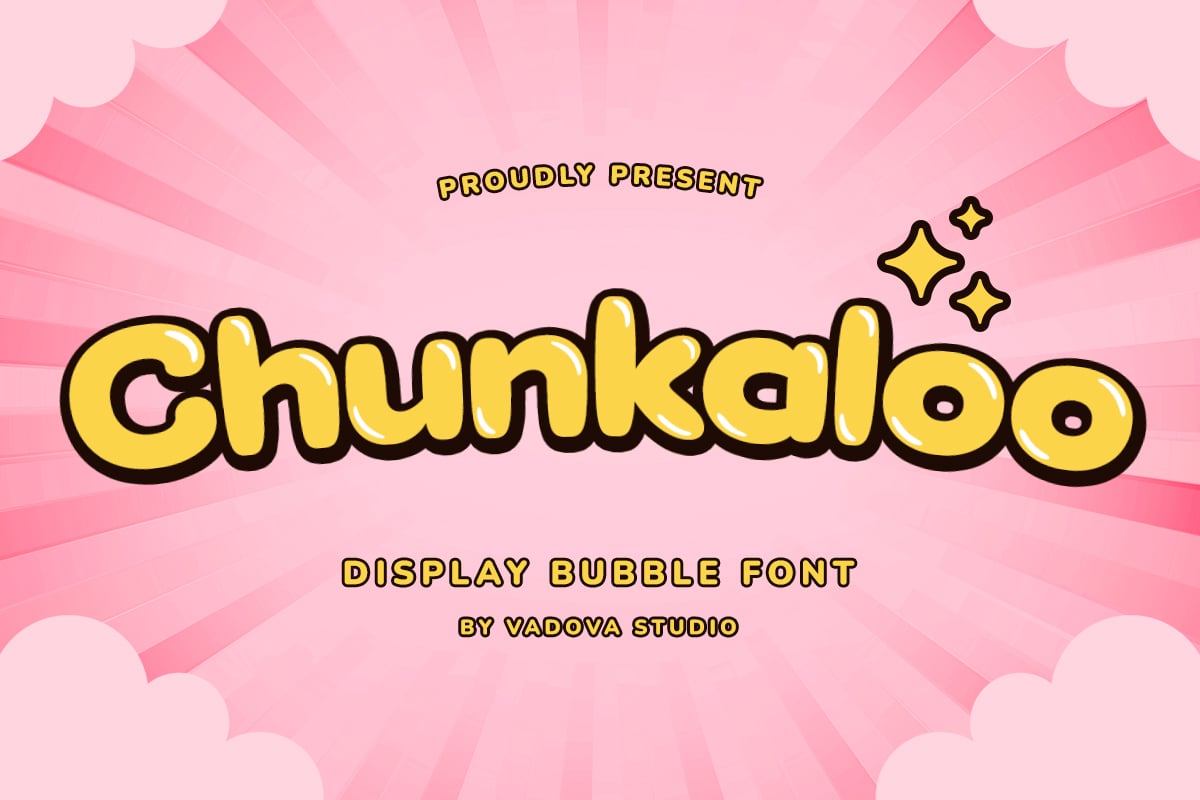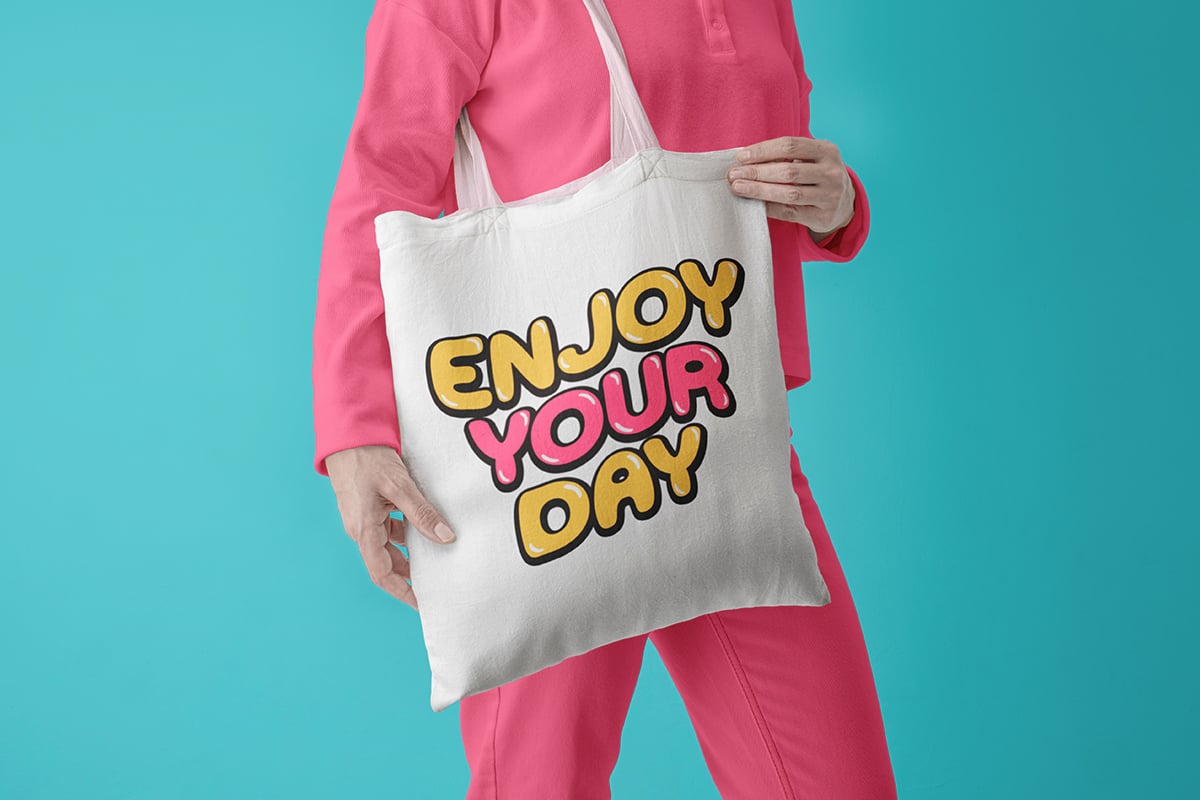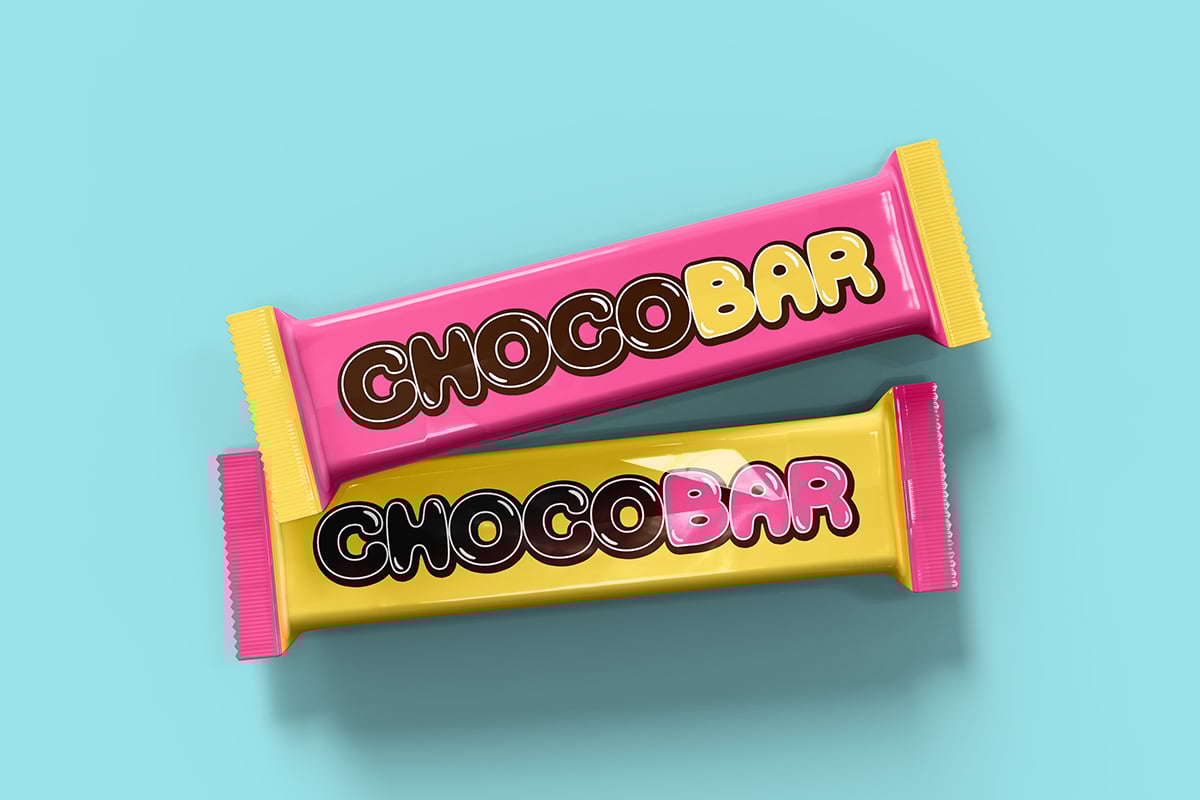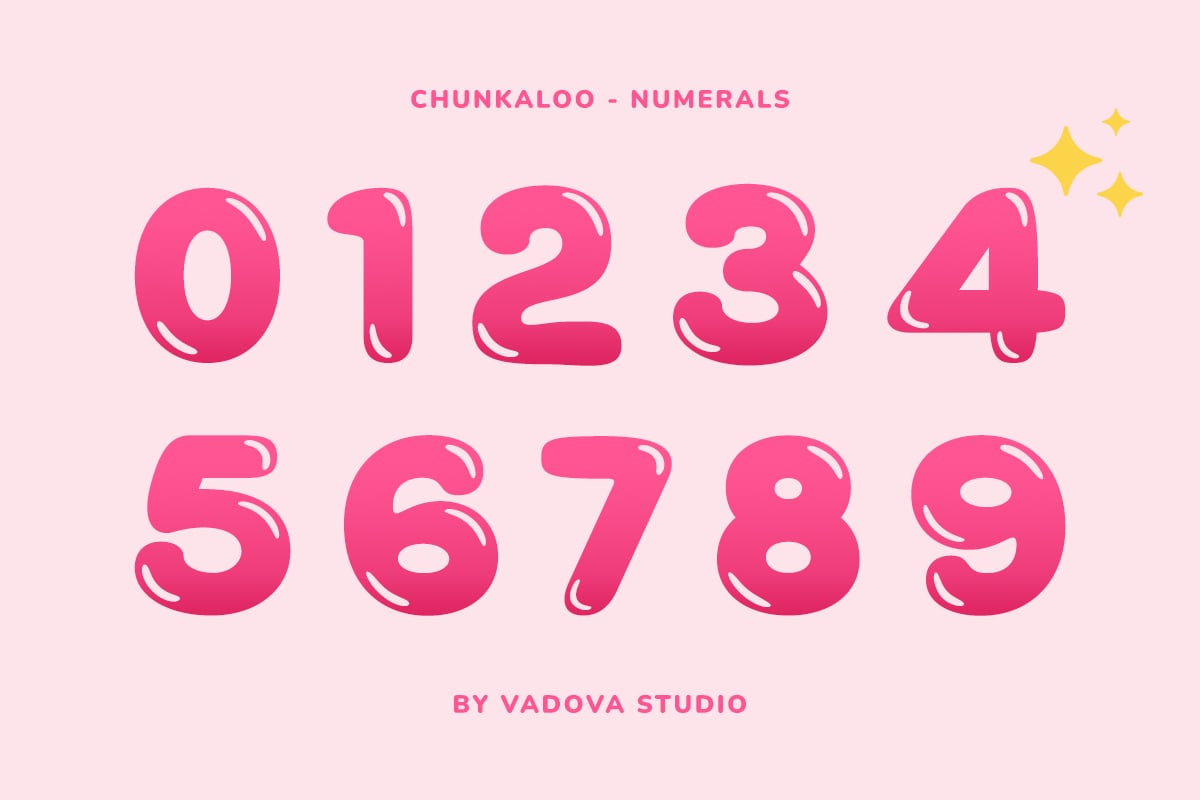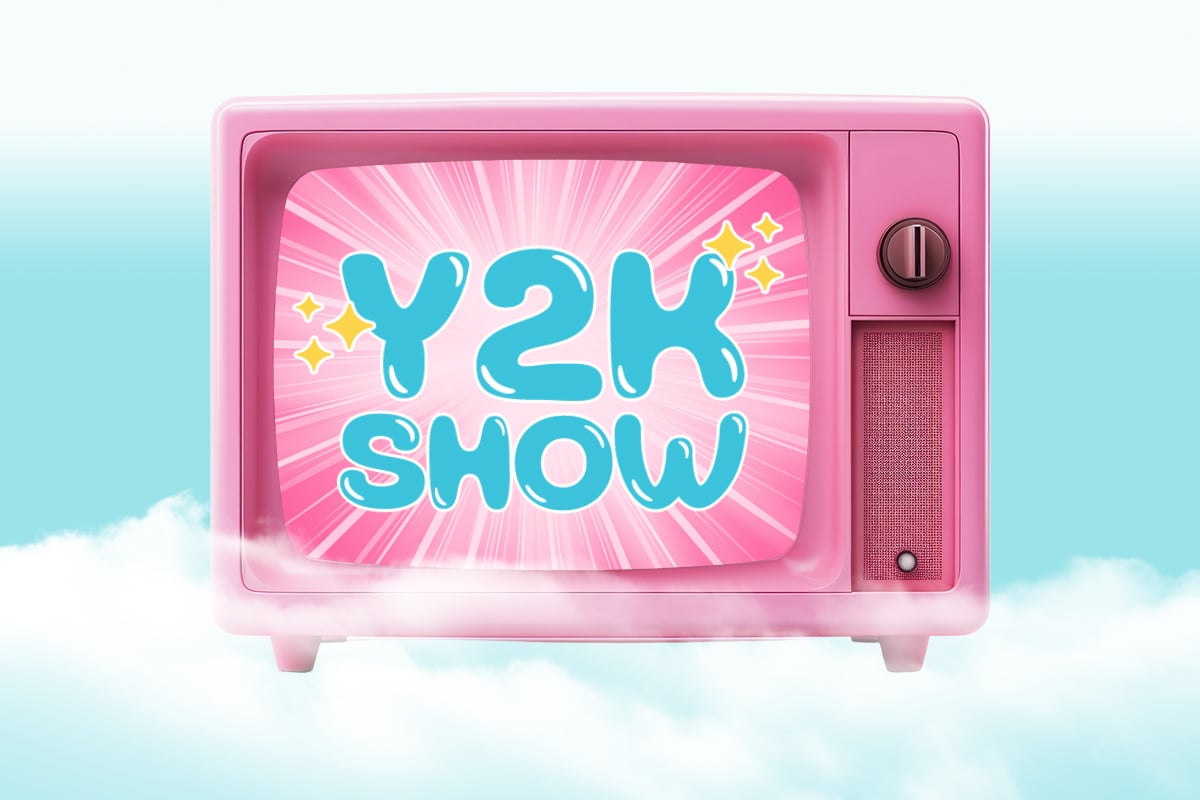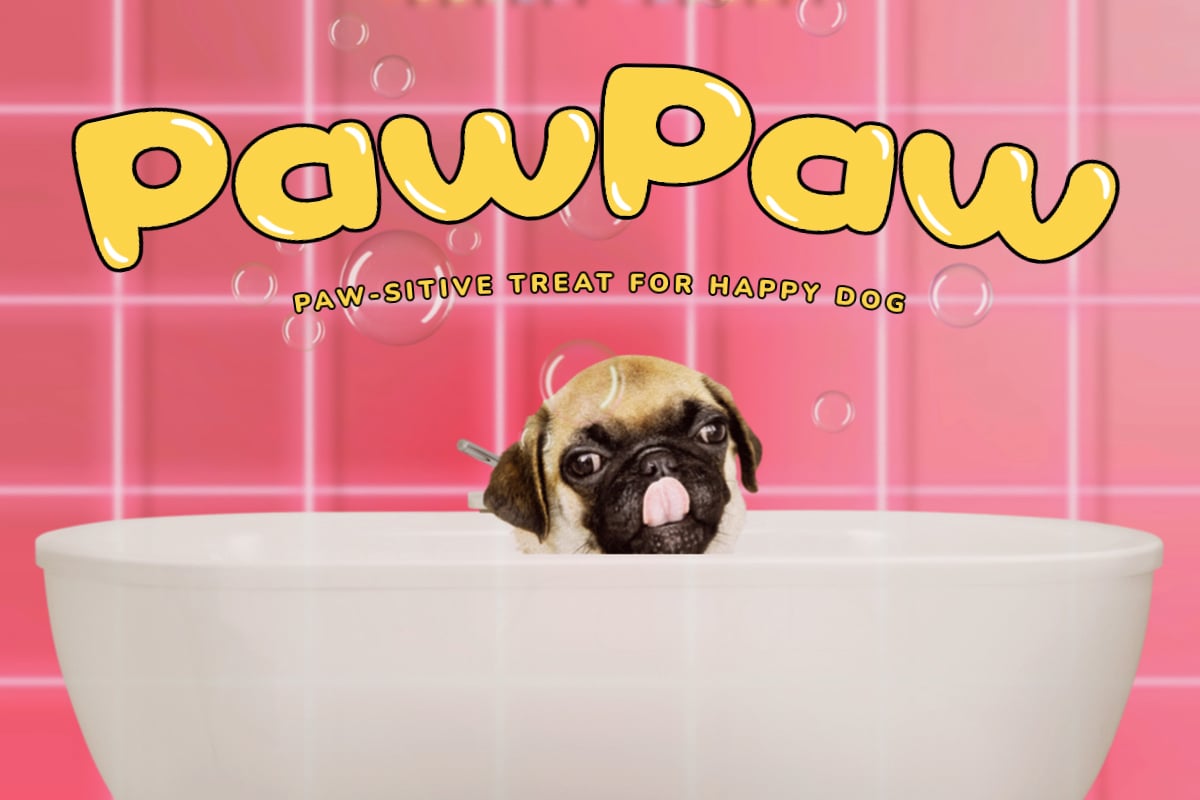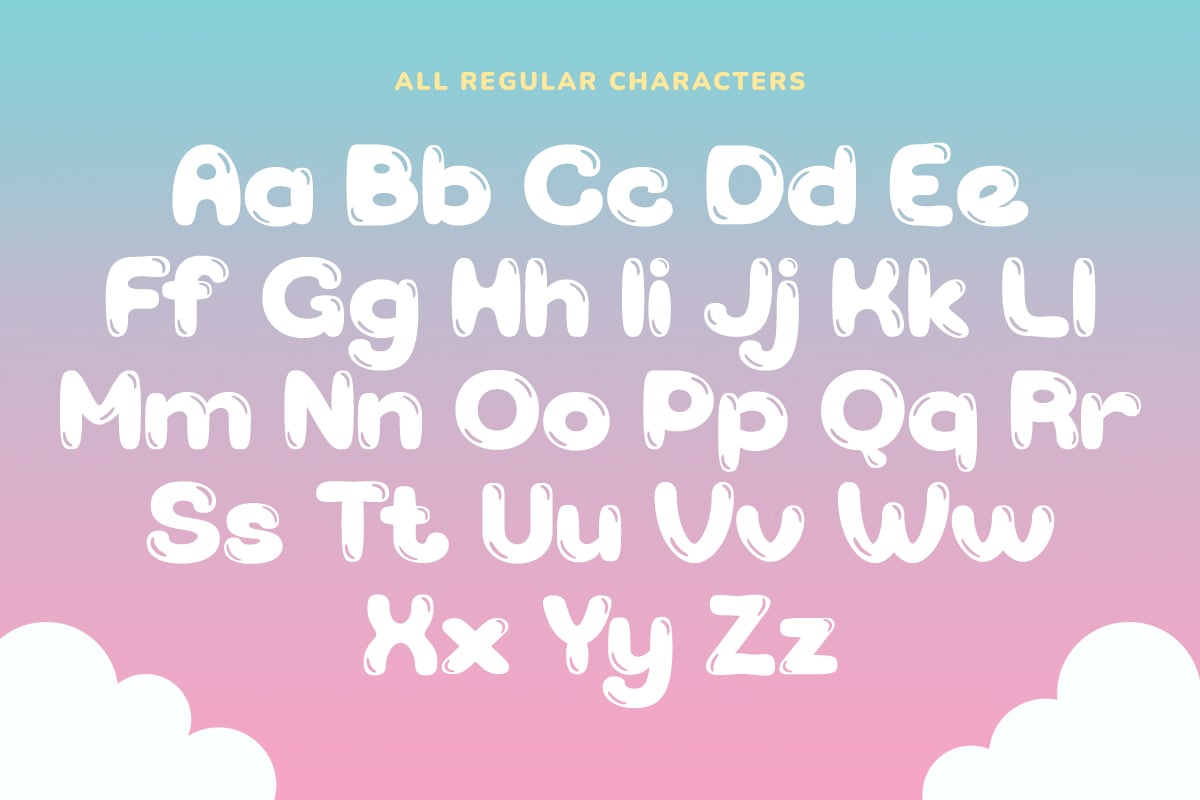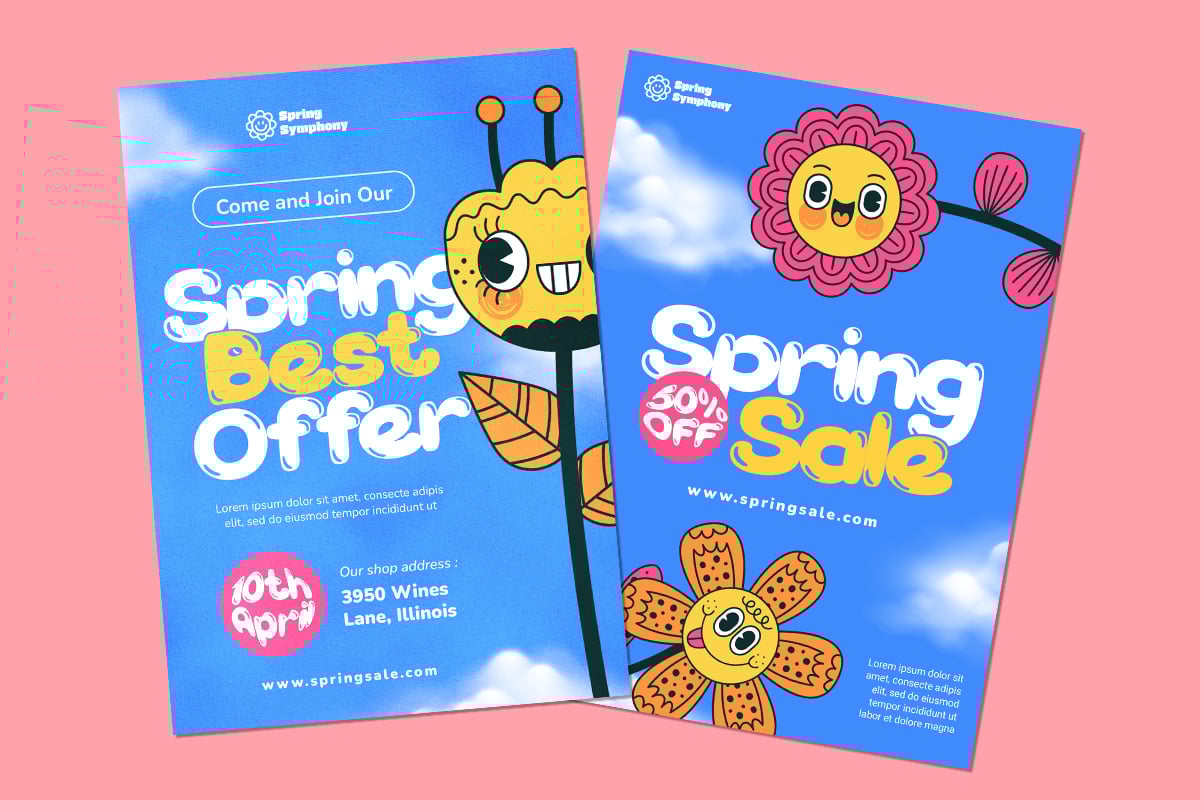
Chunkaloo Dispay Bubble Font
Elevate your designs with Chunkaloo Dispay Bubble Font, a modern font perfect for adding elegance and style to your projects. Whether it’s for quotes, logotypes, magazine headers, or more, this versatile typeface ensures your text stands out beautifully.
- Uppercase & Lowercase characters
- Numeral & Punctuations